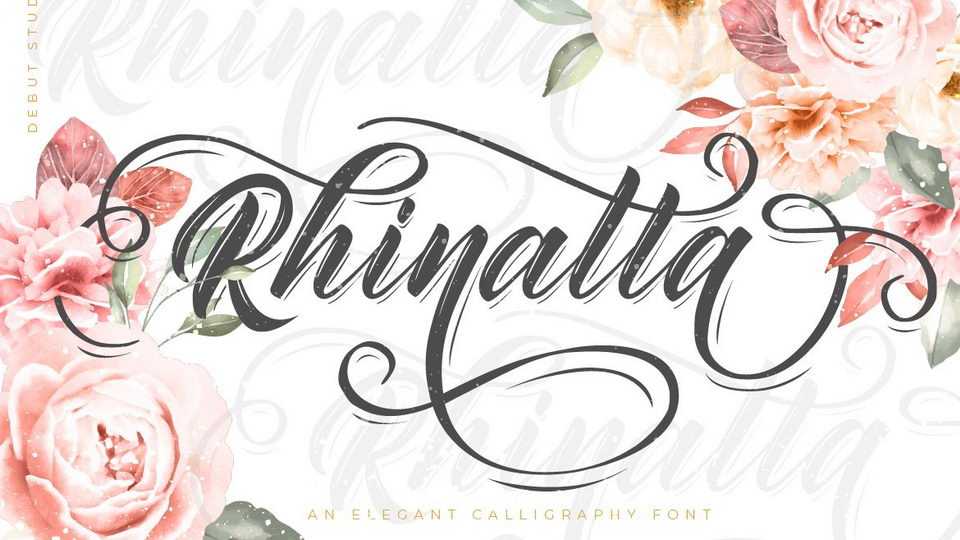
Download Rhinatta Script font, an elegant modern calligraphy typeface with highlight and shadow effect. Rhinatta Script font is suitable for wedding invitation, poster, quote, label, card name, and other stuff.
Designer: Debut Studio